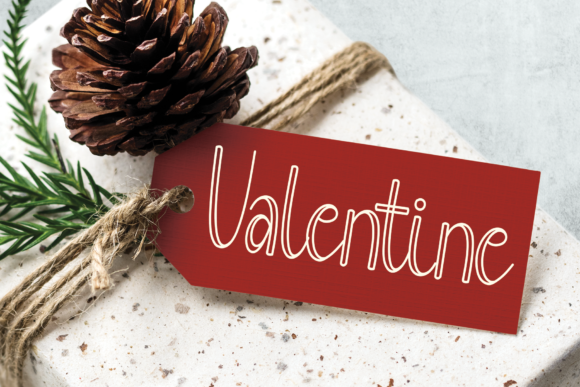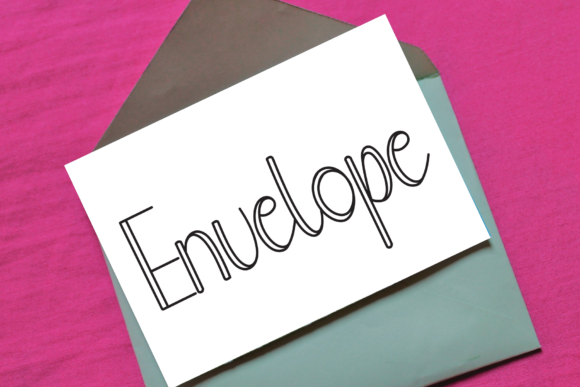
Writen Handmade Font
db-ku.com - Script & Handwritten -- This is a sweet handwritten font that was crafted with great care to produce the expected results. This font can be used to write various kinds of products according to their individual needs.